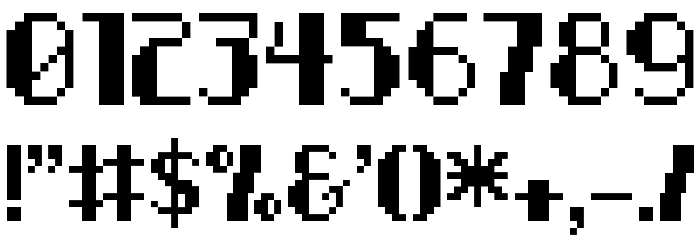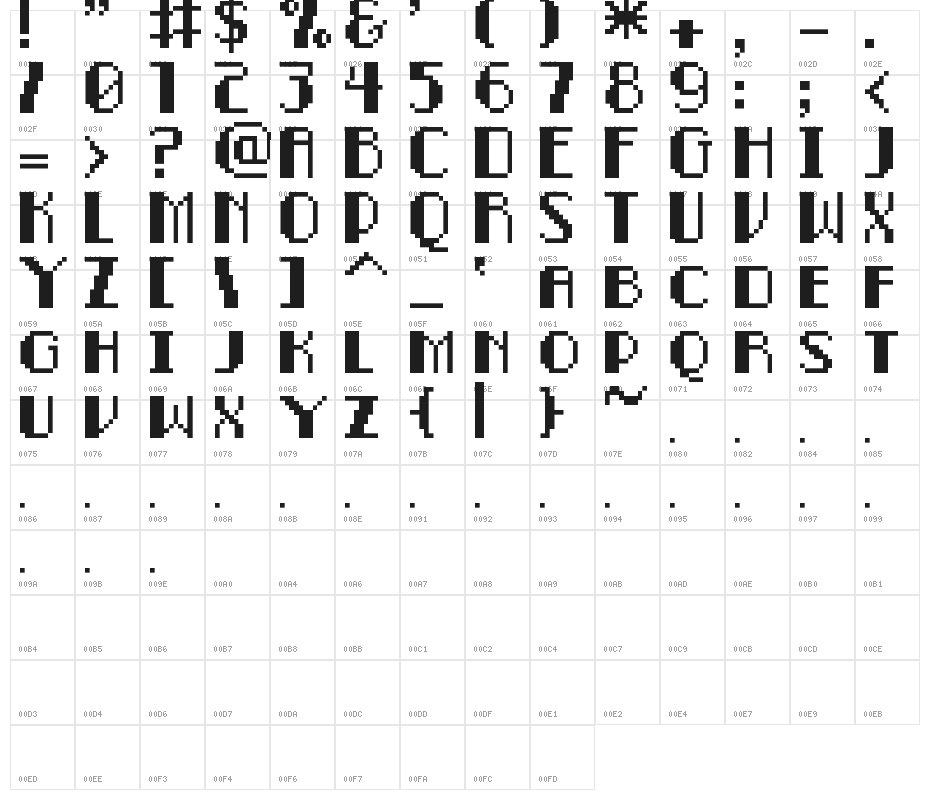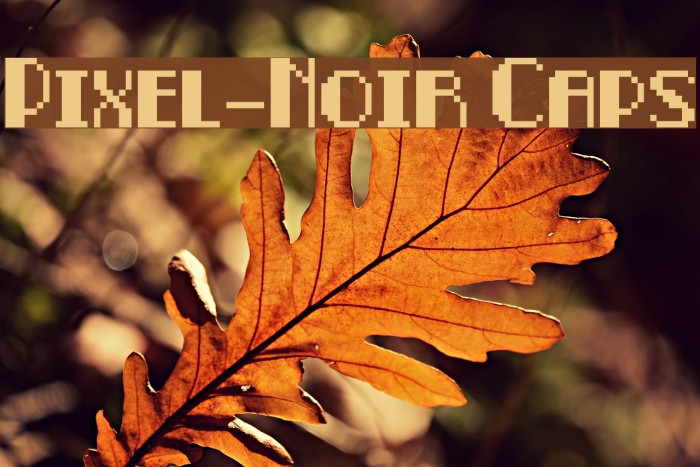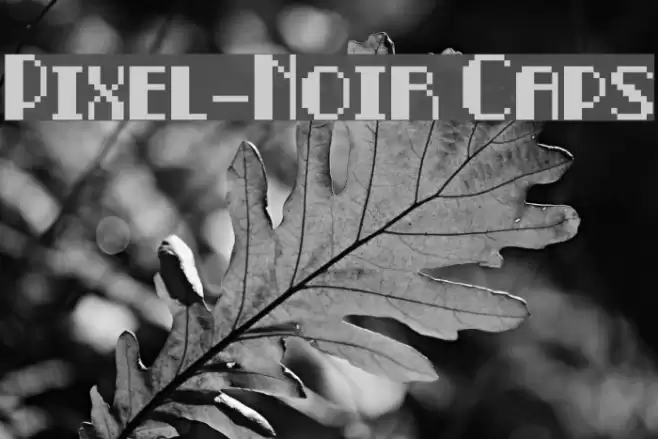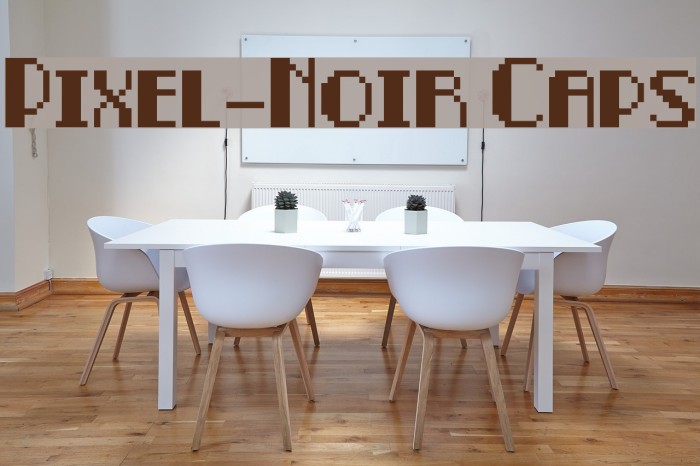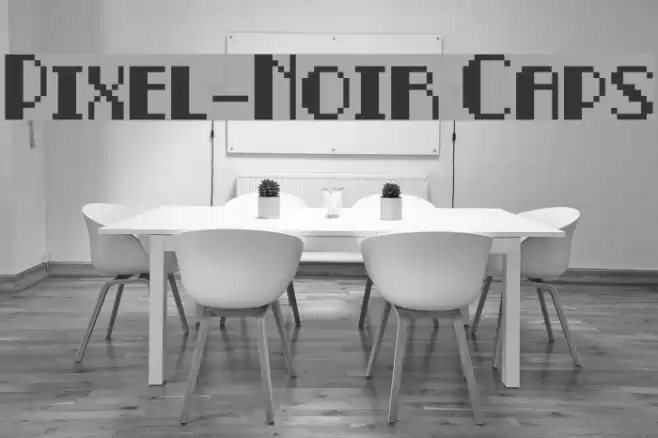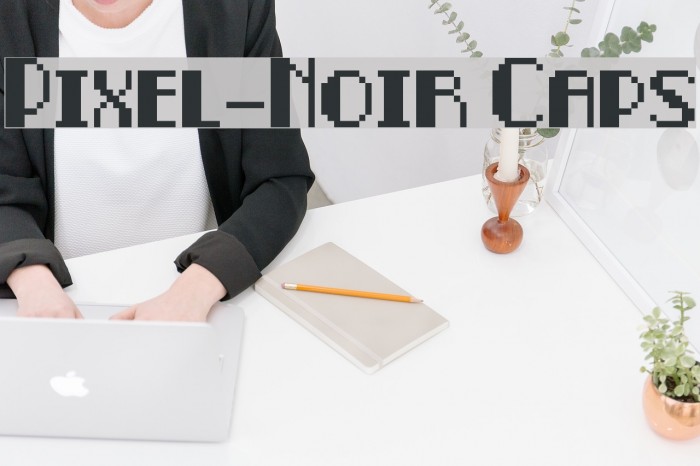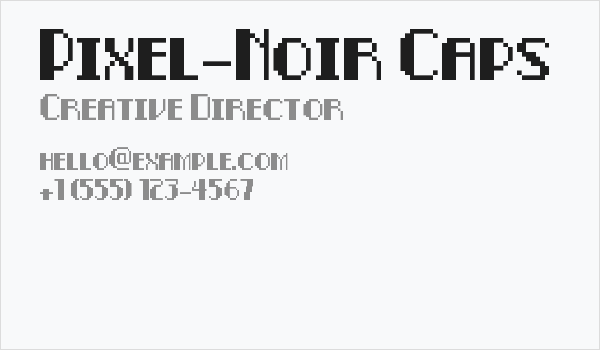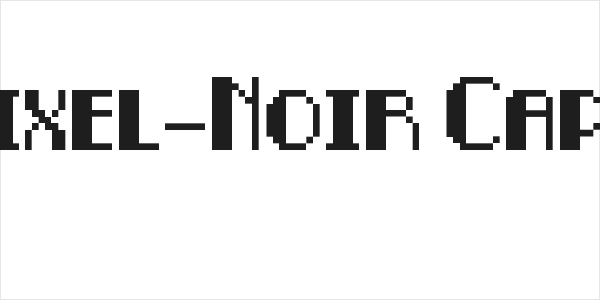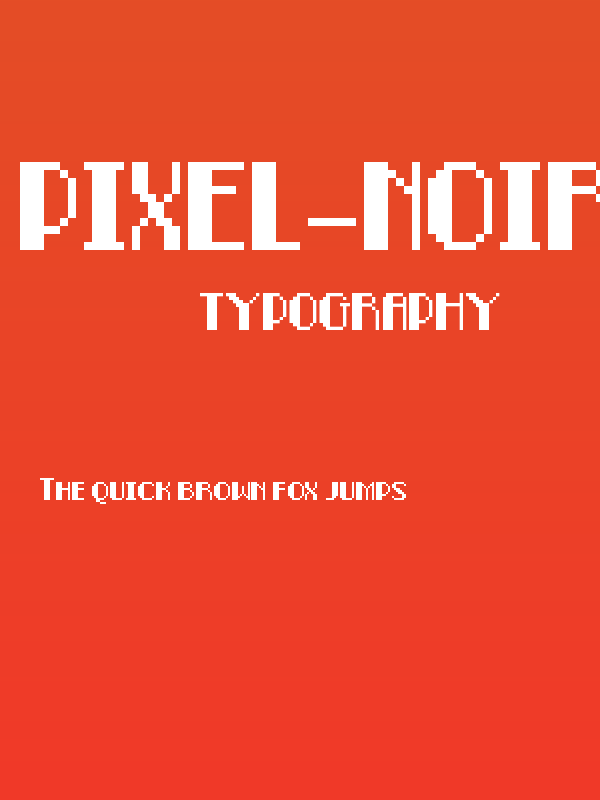
Pixel-Noir Caps Font
Pixel-Noir Caps Description
This font features a distinct pixelated style reminiscent of early digital displays and retro video games. Each character is composed of blocky, square pixels, giving it a nostalgic and vintage feel. The uppercase and lowercase letters maintain a consistent height, while the numbers and special characters are crafted with the same pixelated precision. The design is straightforward, with no curves or embellishments, emphasizing a minimalist and geometric aesthetic. This font is ideal for projects that aim to evoke a sense of nostalgia or to create a digital or tech-inspired look.
| Proposed Projects | Ideal for retro video game designs, digital art projects, tech-themed posters, and nostalgic branding. |